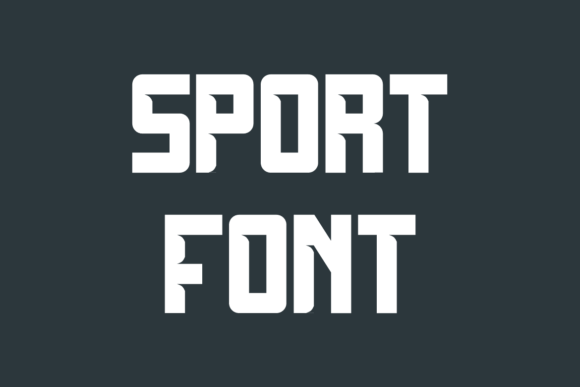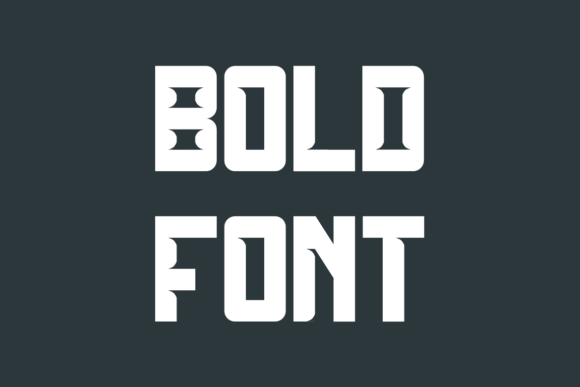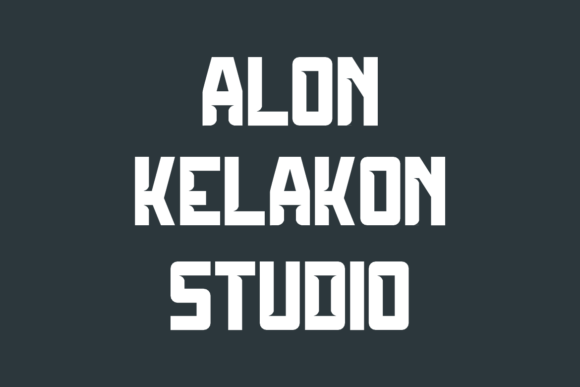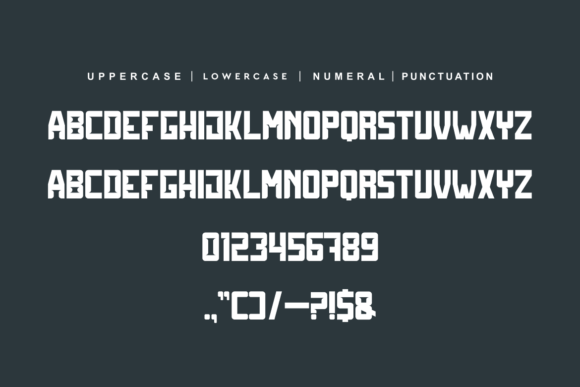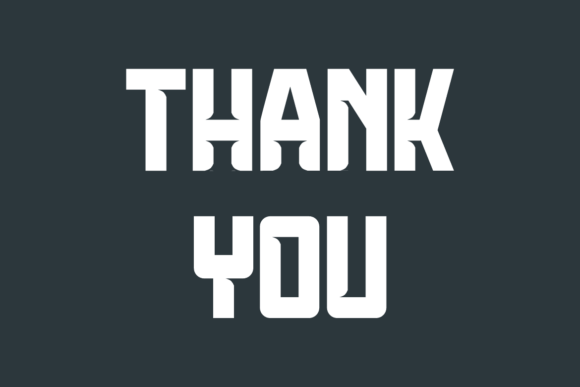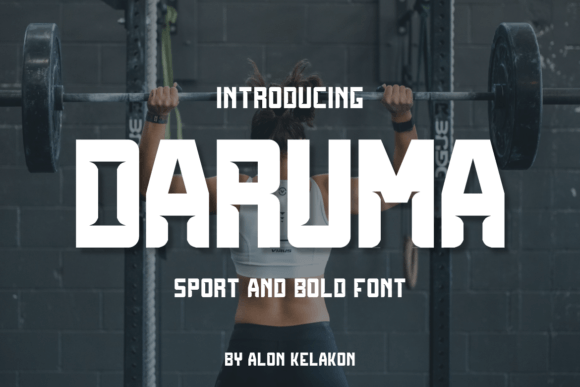
Introducing Daruma Font: The Bold and Assertive Sans Serif for Your Creative Projects
Are you tired of using the same old fonts for your designs? Look no further! Daruma Font is here to revolutionize your typography with its bold and assertive sans serif style. This incredible font is perfect for designers, crafters, and anyone looking to elevate their creative projects. In this article, we’ll dive into the world of Daruma Font, exploring its features, benefits, and uses.
What is Daruma Font?
Daruma Font is a modern sans serif font designed to make a statement. Its bold and assertive style makes it perfect for headlines, titles, and any other text that needs to grab attention. The font’s clean and minimalist design ensures that it remains legible, even at smaller sizes. Whether you’re working on a logo, brochure, or website, Daruma Font is an excellent choice.
Key Features of Daruma Font
- Bold and Assertive: Daruma Font’s bold style makes it perfect for creating eye-catching headlines and titles.
- Sans Serif: The font’s clean and minimalist design ensures that it remains legible and easy to read.
- Versatile: Daruma Font can be used for a wide range of projects, from logos and brochures to websites and social media graphics.
- High-Quality: The font is designed with high-quality craftsmanship, ensuring that it looks great in any context.
Benefits of Using Daruma Font
So, why should you choose Daruma Font for your projects? Here are just a few benefits:
- Elevate Your Designs: Daruma Font’s bold and assertive style can instantly elevate your designs, making them more engaging and attention-grabbing.
- Increase Legibility: The font’s clean design ensures that your text remains legible, even at smaller sizes.
- Save Time: With Daruma Font, you can create professional-looking designs in no time. The font’s versatility means you can use it for a wide range of projects.
- Stand Out: Daruma Font’s unique style ensures that your designs will stand out from the crowd. Say goodbye to boring, generic fonts!
Who Can Benefit from Daruma Font?
Daruma Font is perfect for:
- Graphic Designers: Add Daruma Font to your library and take your designs to the next level.
- Crafters: Use Daruma Font to create beautiful and unique crafts, such as handmade cards and invitations.
- Marketers: Create eye-catching marketing materials, such as brochures and social media graphics, with Daruma Font.
- Web Designers: Use Daruma Font to create stunning website headers and titles.
How to Use Daruma Font
Using Daruma Font is easy! Here are a few tips:
- Pair with Other Fonts: Pair Daruma Font with other fonts to create a unique and visually appealing typography.
- Experiment with Sizes: Experiment with different font sizes to create visual hierarchy and emphasis.
- Use for Headlines: Use Daruma Font for headlines and titles to grab attention.
In conclusion, Daruma Font is an incredible asset for any designer or crafter looking to elevate their creative projects. Its bold and assertive sans serif style makes it perfect for headlines, titles, and any other text that needs to grab attention. With its versatility, legibility, and high-quality craftsmanship, Daruma Font is a must-have font for any typography library.